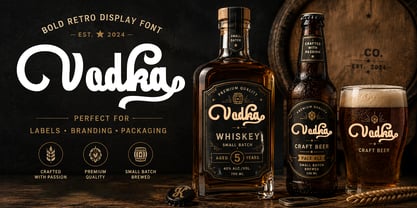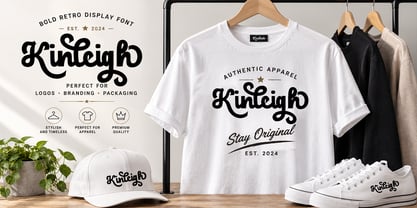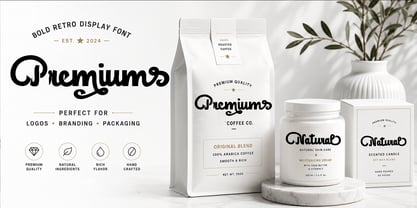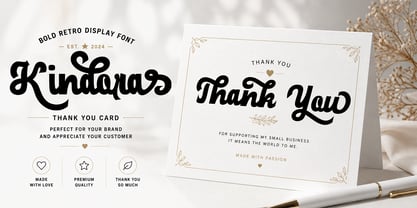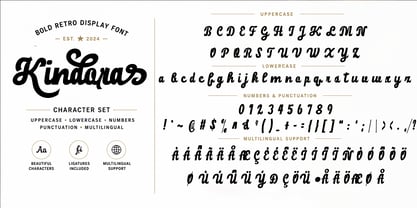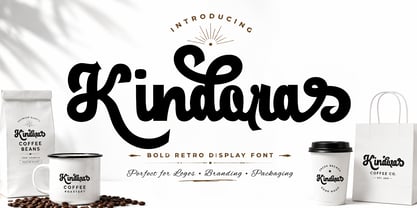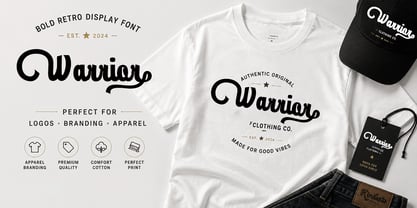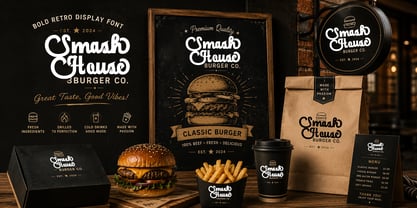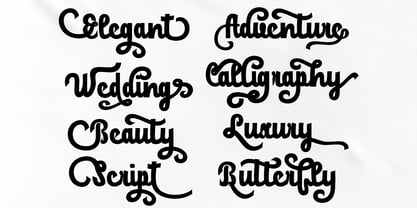
Kindora
by Shape Studio
The Kindora Font Family was designed by Teuku Saifullah and published by Shape Studio. Kindora contains 2 styles and family package options. More about this family
Kindora is a bold retro display font that blends vintage charm with a modern handcrafted feel. Its thick letterforms, smooth curves, and distinctive decorative swashes create a strong visual impact, making it ideal for eye-catching headlines and memorable branding.
Designed to bring warmth and personality to every project, Kindora works beautifully for logos, coffee shops, restaurants, burger brands, product packaging, apparel, signage, posters, labels, and social media graphics. Whether you're creating a nostalgic brand identity or a contemporary retro design, this font delivers a bold and authentic look.
Perfect for:
• Logos & Branding
• Coffee Shop & Café
• Restaurant & Burger Branding
• Product Packaging
• Apparel & Merchandise
• Posters & Signage
• Labels & Stickers
• Social Media Graphics
• Vintage Advertising
• Creative Display Designs
Designers: Teuku Saifullah
Foundry: Shape Studio